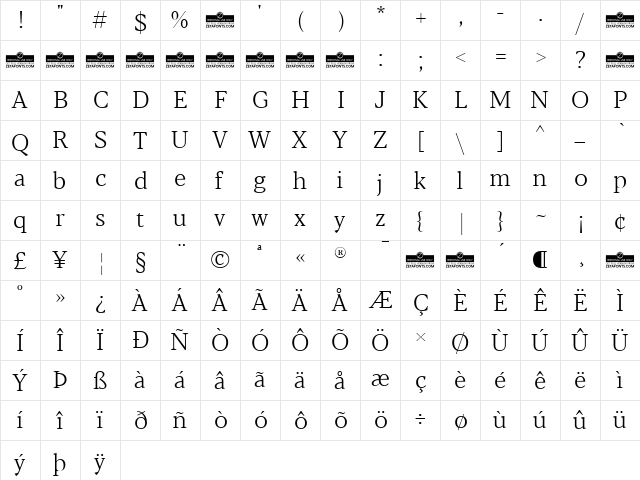
Blacker Text Light Font Preview
Blacker Text Light
Blacker Text Light Font Details
| Foundry | Cosimo Lorenzo Pancini & Francesco Canovaro |
| Designer | Cosimo Lorenzo Pancini & Francesco Canovaro |
Design Context for Blacker Text Typeface
Blacker Text offers clean, dependable letterforms without strong stylistic allegiance, making it a practical choice for designers who need flexibility. Its slender proportions lend an understated elegance to any composition.